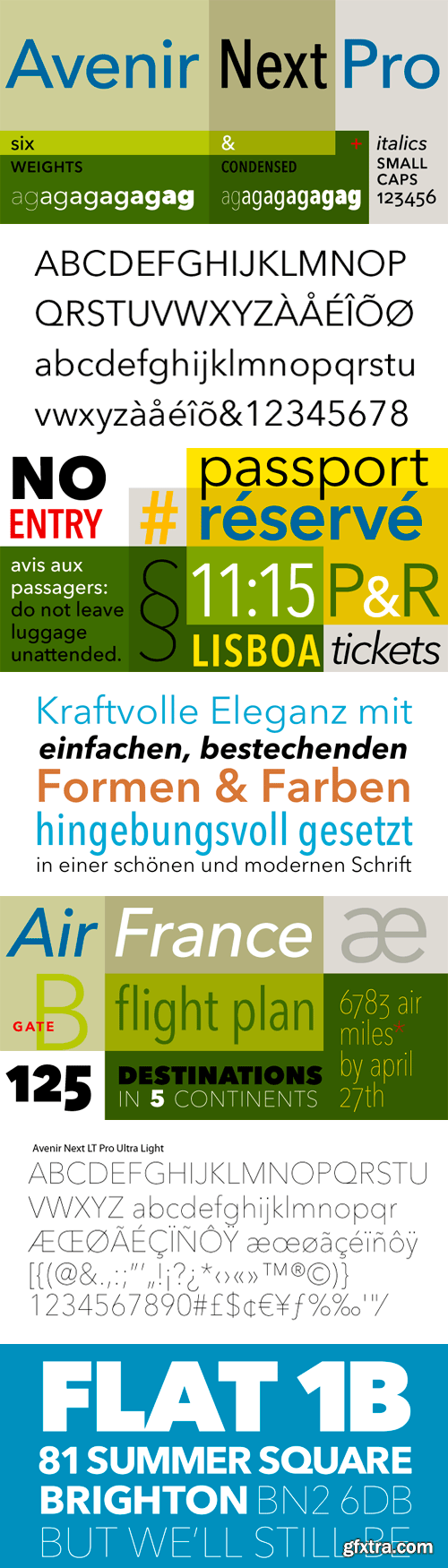
Avenir Next Pro Font Family
In 2004, Frutiger, together with Linotype in-house type designer Akira Kobayashi, reworked the Avenir family to address on-screen display issues. The result was titled Avenir Next. The typeface family was increased to 24 fonts: 6 weights, each with a roman and italic version, in 2 widths: normal and condensed. Frutiger’s numbering system was abandoned in favor of more conventional weight names. The glyph set was expanded to include small caps, old style figures, subscripts and superscripts, ligatures.